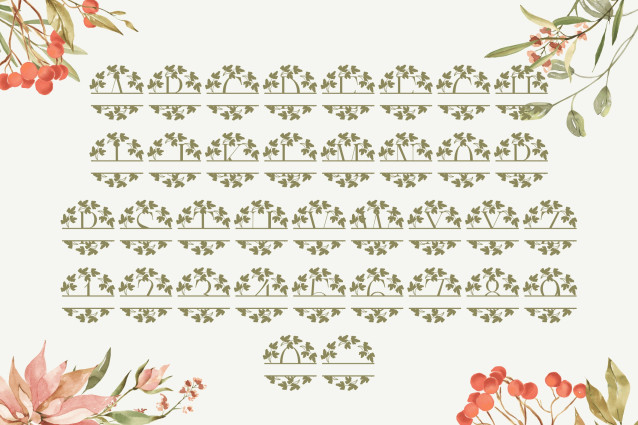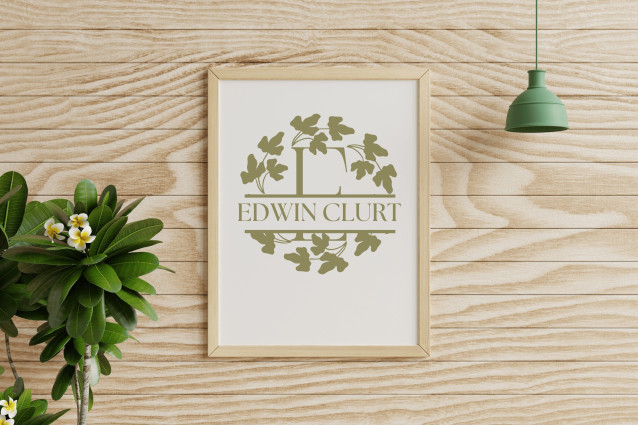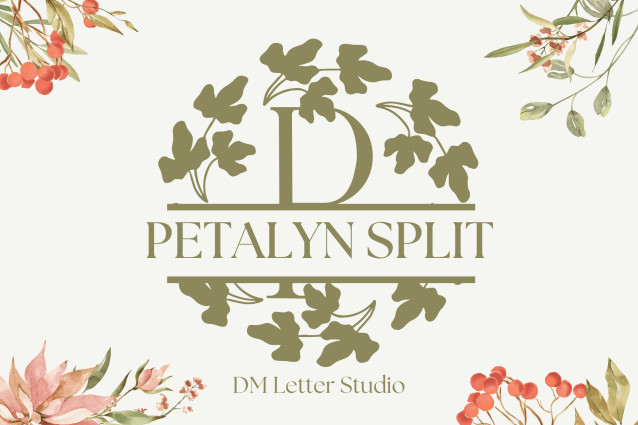
Petalyn Split Monogram Font
Petalyn Split Monogram offers a refined serif typeface with a horizontal split through each uppercase letter, designed to elegantly hold names, initials, or short words. Enhanced by soft, petal-like flourishes, it’s a perfect choice for personalized gifts, wedding items, branding, and crafting projects that need a graceful and botanical touch.